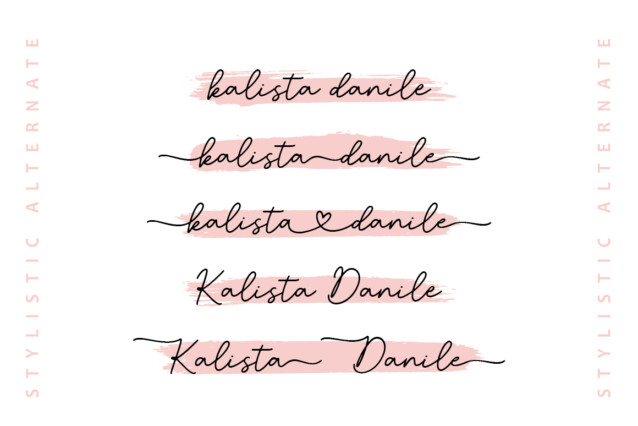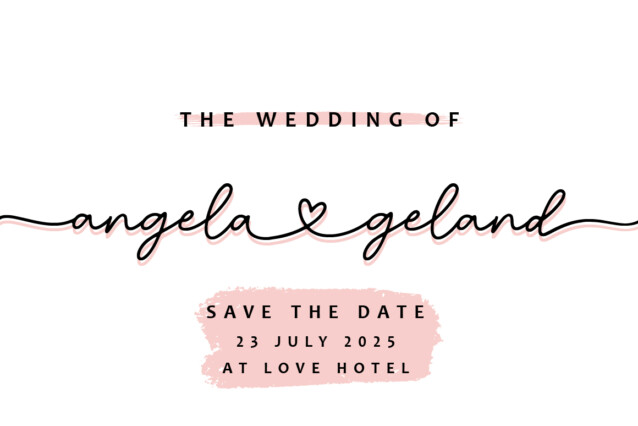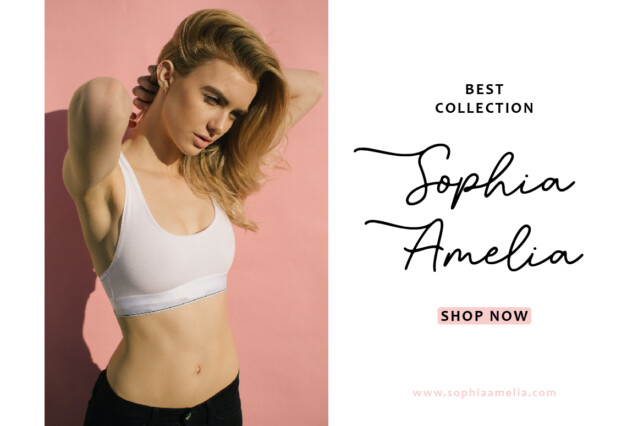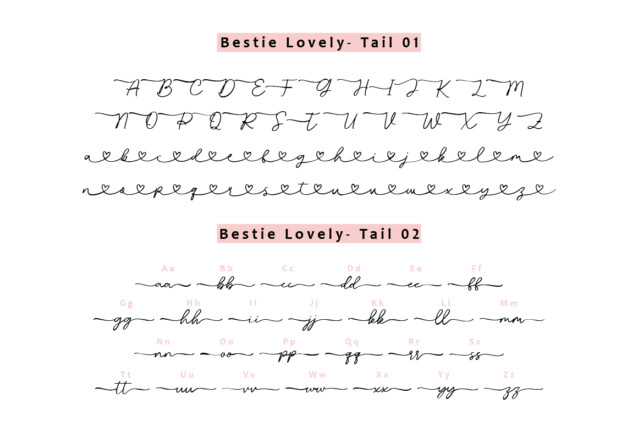
Bestie Lovely Font
Bestie Lovely Font is a lovely handwritten script font that emanates elegance. It has enthralling tails at the beginning and conclusion of each stroke and captivating letter alternatives. The font’s distinguishing feature is its heart-shaped connecting tail, which lends a romantic and charming touch.